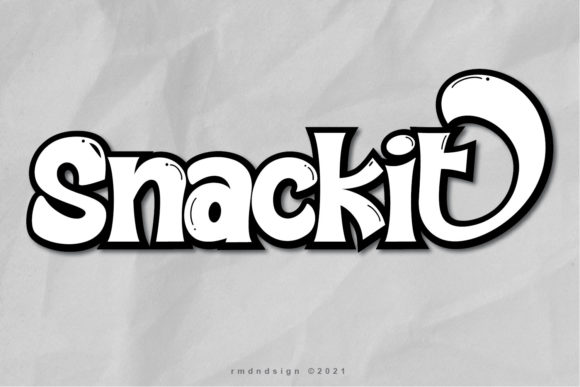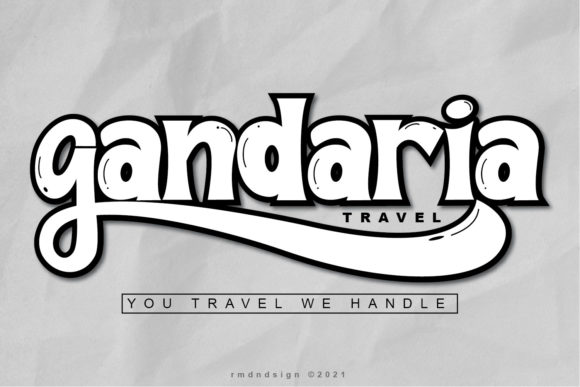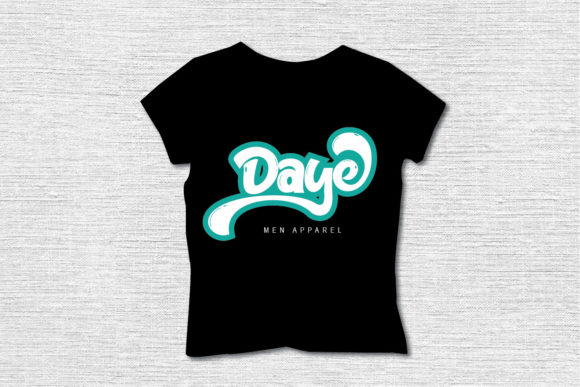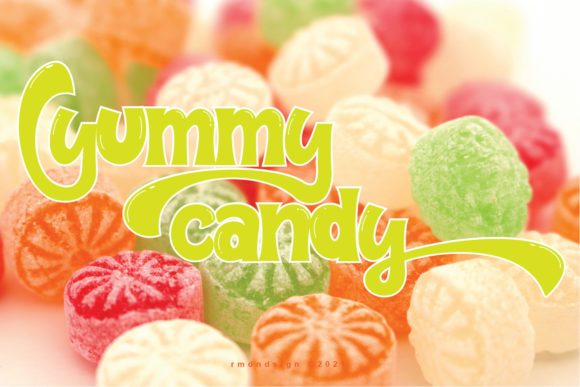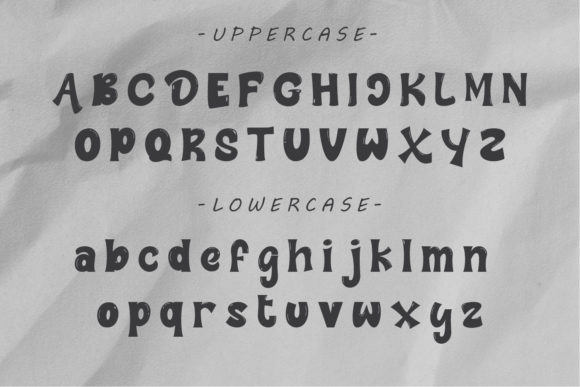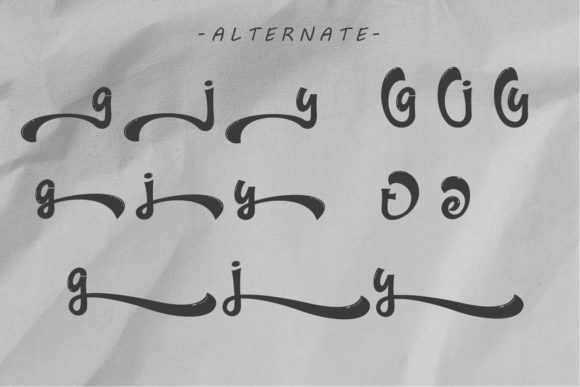
Introducing Blacky Font: The Ultimate Display Font for Creative Minds
In the world of typography, a good font can make all the difference in creating a lasting impression. For designers, crafters, and creative enthusiasts, finding the perfect font that embodies elegance and artistry can be a daunting task. This is where Blacky Font comes in – a unique display font specially crafted for those who dare to be different.
What Makes Blacky Font Stand Out?
Blacky Font is not just another font; it’s an experience. Equipped with several alternate options, this font is designed to elevate your creative projects to new heights. Whether you’re working on a logo, cover, advertisement, banner, or any other visual project, Blacky Font is the perfect companion. Its elegant and artistic vibe ensures that your work stands out from the crowd, making it an ideal choice for designers and crafters who want to leave a lasting impression.
Key Features of Blacky Font
- Unique Display Font: Blacky Font is specifically designed as a display font, making it perfect for headlines, titles, and short texts that need to make a bold statement.
- Alternate Options: One of the standout features of Blacky Font is its range of alternate options. These variations allow you to experiment with different styles, ensuring your project is always fresh and engaging.
- Elegant and Artistic: The font’s design exudes elegance and artistry, making it suitable for projects that require a touch of sophistication and creativity.
- Versatile: From logos and covers to advertisements and banners, Blacky Font’s versatility ensures it can be used across a wide range of projects.
Why Choose Blacky Font?
For designers and crafters, the font choice can significantly impact the overall aesthetic and effectiveness of a project. Here are a few reasons why Blacky Font should be at the top of your list:
- Enhance Your Brand’s Visual Identity: With Blacky Font, you can create a unique visual identity for your brand that sets it apart from competitors.
- Easy to Read and Memorable: The clear and distinctive design of Blacky Font ensures that your message is not only visually appealing but also easy to read and remember.
- Time-Saving: With its range of alternate options, Blacky Font saves you time and effort in finding the perfect style for your project.
- High-Quality: Blacky Font is crafted with high-quality design principles in mind, ensuring it looks great in any context.
How to Use Blacky Font Effectively
To get the most out of Blacky Font, consider the following tips:
- Pair it with Other Fonts: Experiment with pairing Blacky Font with other fonts to create a unique and harmonious visual effect.
- Play with Sizes and Colors: Don’t be afraid to experiment with different sizes and colors to make your text stand out.
- Use Alternates: Take advantage of the alternate options to add variety and interest to your text.
Blacky Font is more than just a font – it’s a tool for creative expression. With its unique design, elegant vibe, and versatile application, it’s an excellent choice for designers and crafters looking to elevate their projects. Whether you’re creating a logo, cover, advertisement, or banner, Blacky Font is sure to make your work stand out. So why wait? Explore the creative possibilities with Blacky Font today and take your designs to the next level.